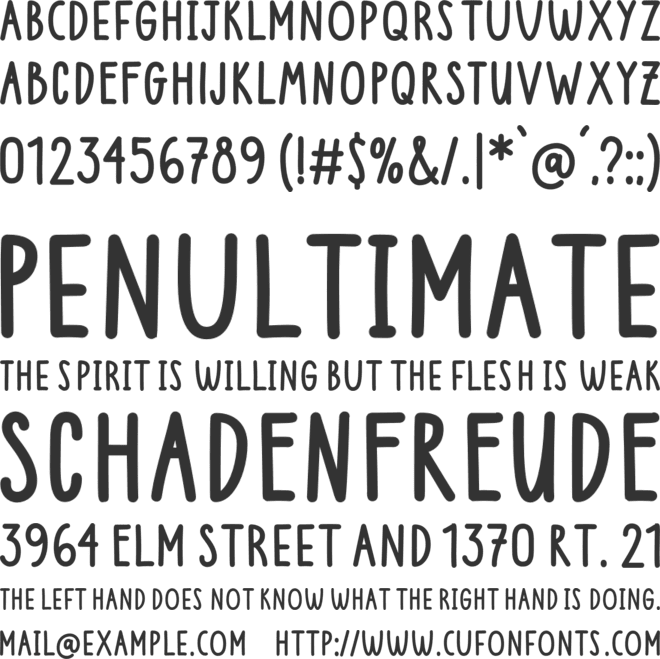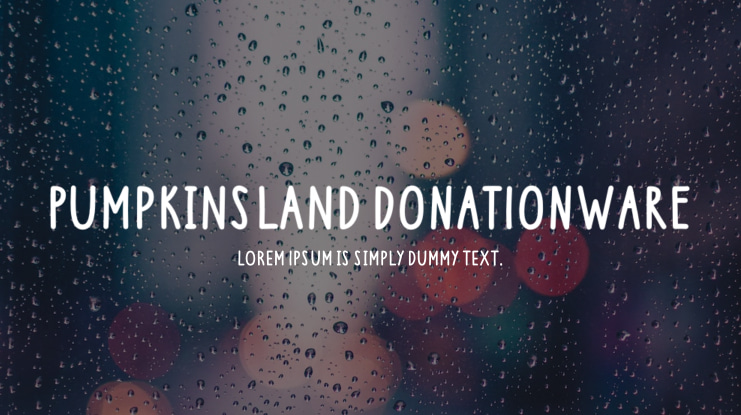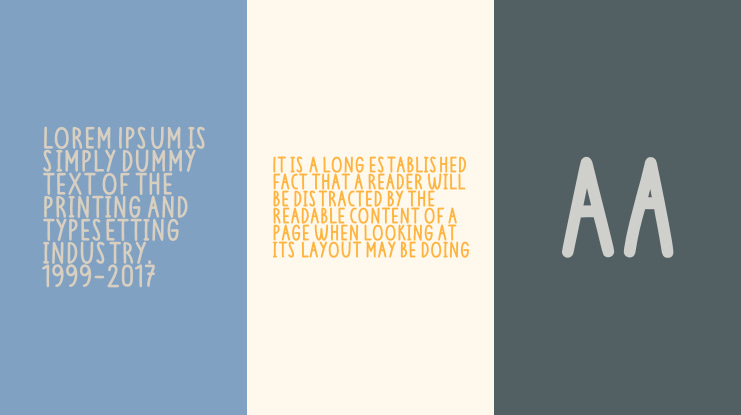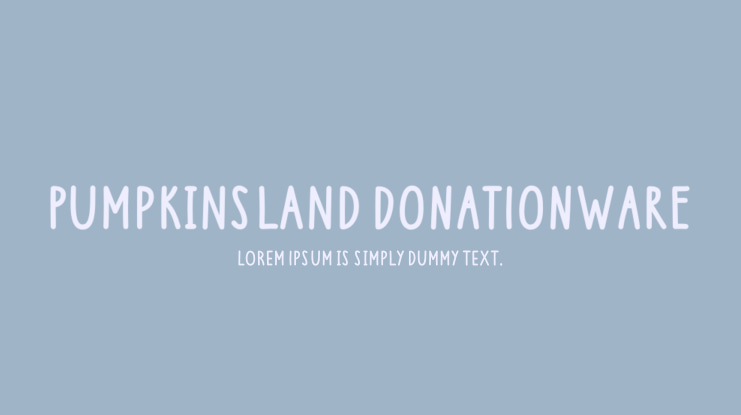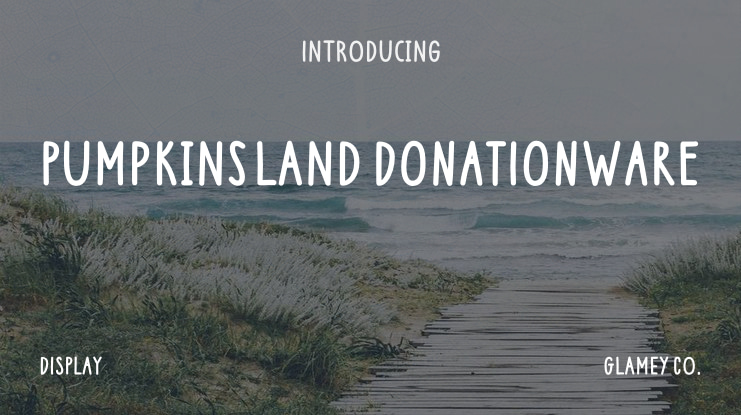
Pumpkinsland DONATIONWARE Font
Pumpkinsland is simple skinny tall all caps typeface. It's crafted looks with handwritten feel, perfect for creating social media posts, branding, quotes, logos, packaging, mug, totes, t-shirt, poster, sticker, key chain or anything for your fun any project.PUMPKINS LAND| ALL CAPS FONTHello,This font is FREE DOWNLOAD: ONLY for PERSONAL USE or DEMO or TYPE TESTER before you buy. REMEMBER! FORBIDDEN, NOT ALLOWED FOR COMMERCIAL USE WITHOUT BUY THE LICENSE. BE HONEST WITH YOURSELF!FOR COMMERCIAL YOU MUST DONATION FIRST, MINIMUM AT $5!Send payment to my PayPal account: for other license, please contact me through: Commercial License here:https://www.creativefabrica.com/product/pumpkinsland/ref/2796875/